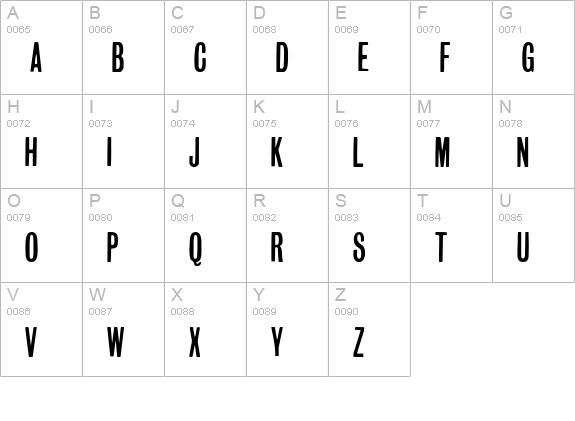
Introducing FreakE Font, a unique and eye-catching typeface that is sure to make your designs stand out! This one-of-a-kind font features quirky and playful letterforms that will add a touch of fun to any project. Whether you're designing posters, invitations, or social media graphics, FreakE Font is the perfect choice for adding a bold and distinctive look. The best part? FreakE Font is completely free to download at FontsMarket.com! That's right, you can get your hands on this amazing font at no cost at all. So why wait? Download FreakE Font today and start creating stunning designs that will leave a lasting impression.